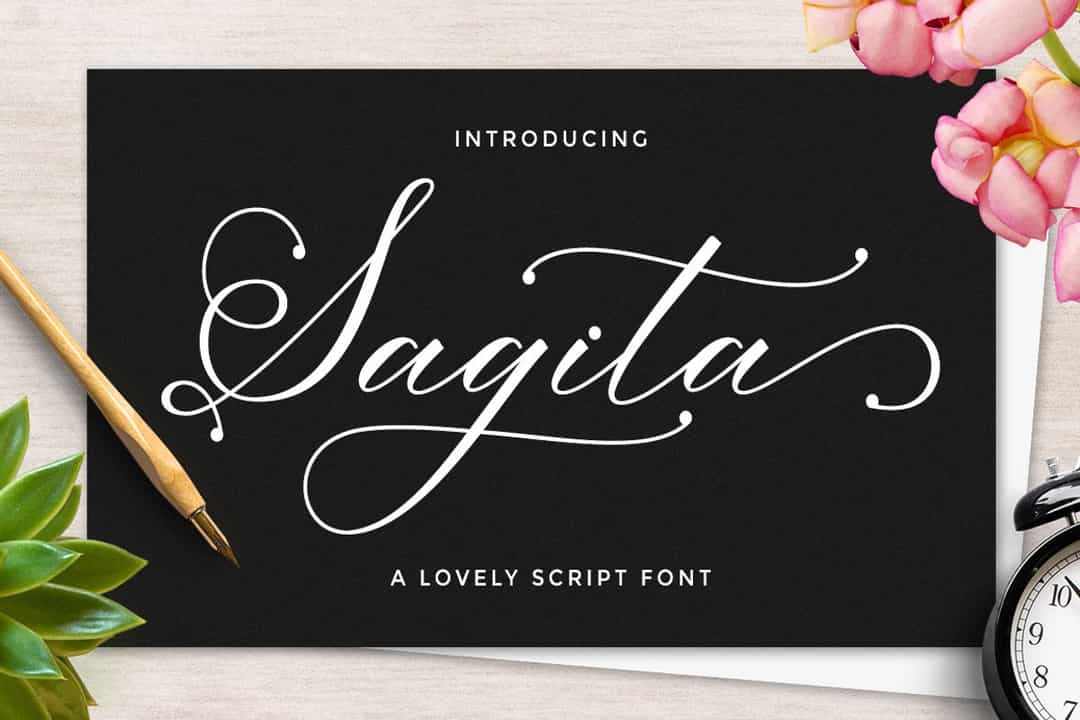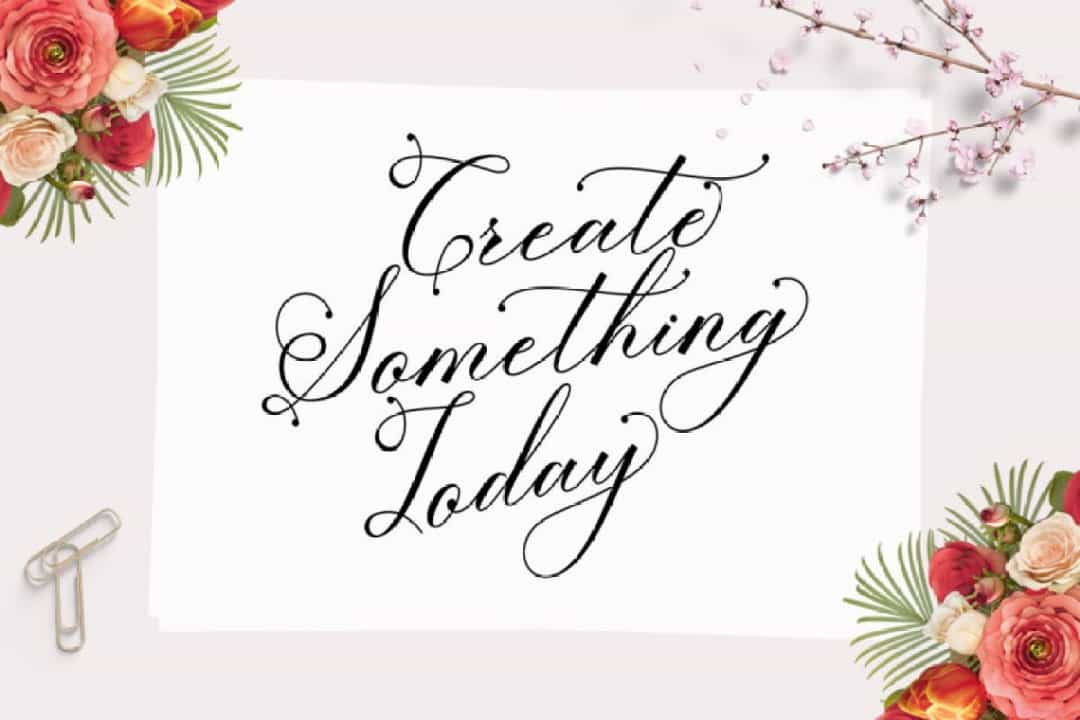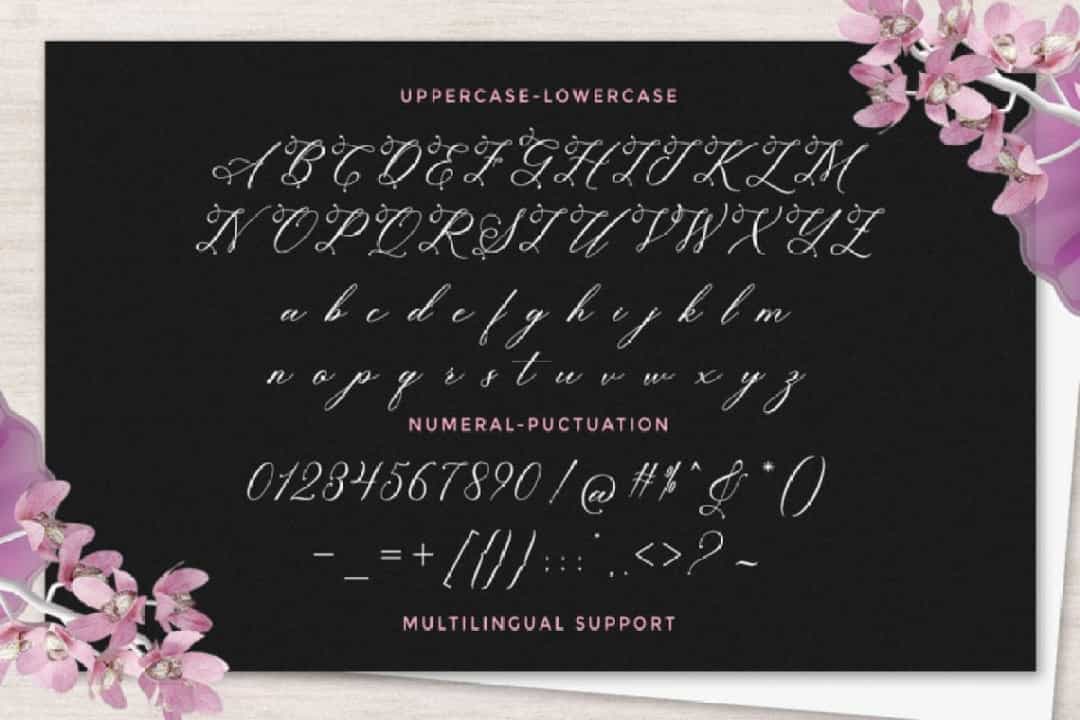
Sagitas is a beautiful and sophicticated typeface with a script that has a formal look yet is grounded in tradition but with a modren twist. It can be used for different purposes such as wedding invitations, logos, letters, headings, T-shirt signs, labels, posters and news badges; including terminal and initial letters as well as alternate characters like ligatures logos and multiple language support.